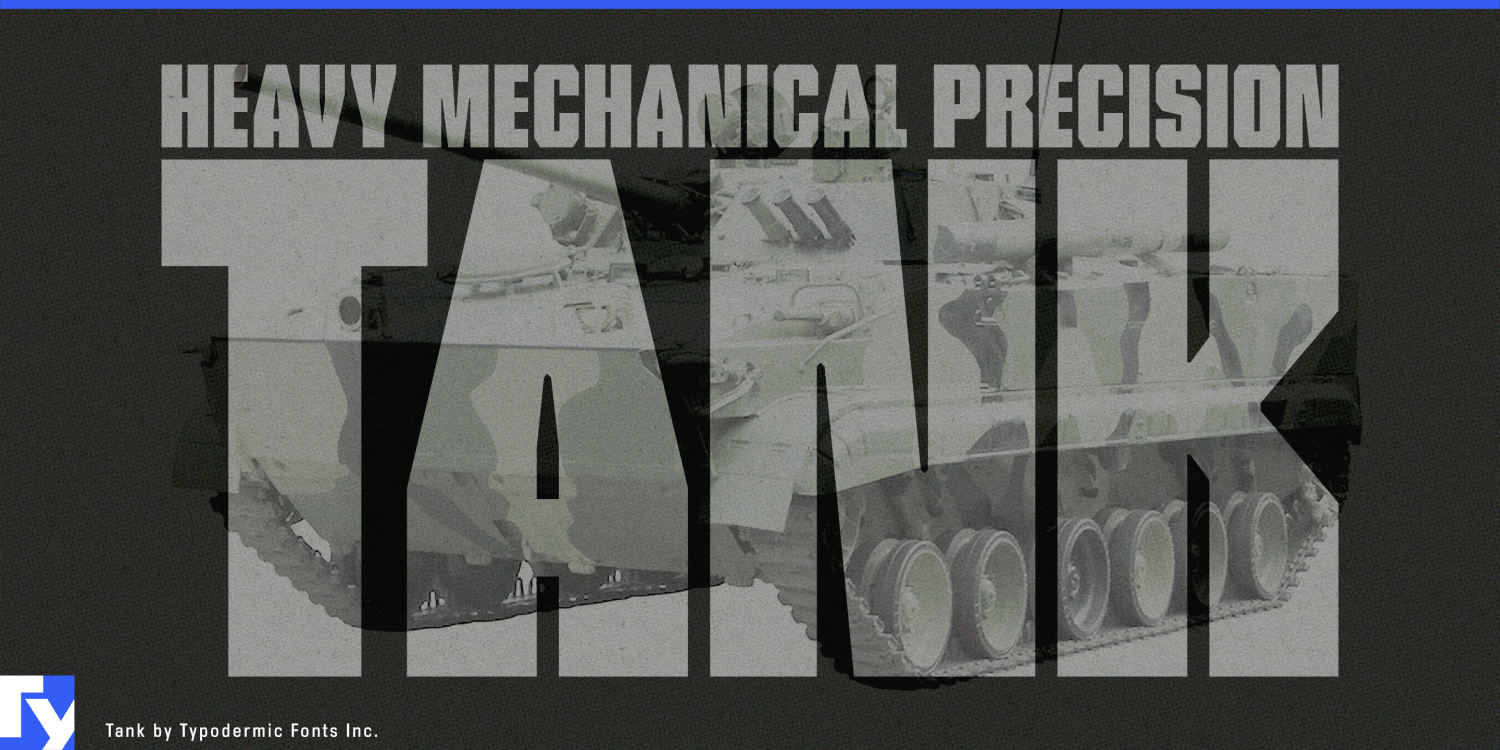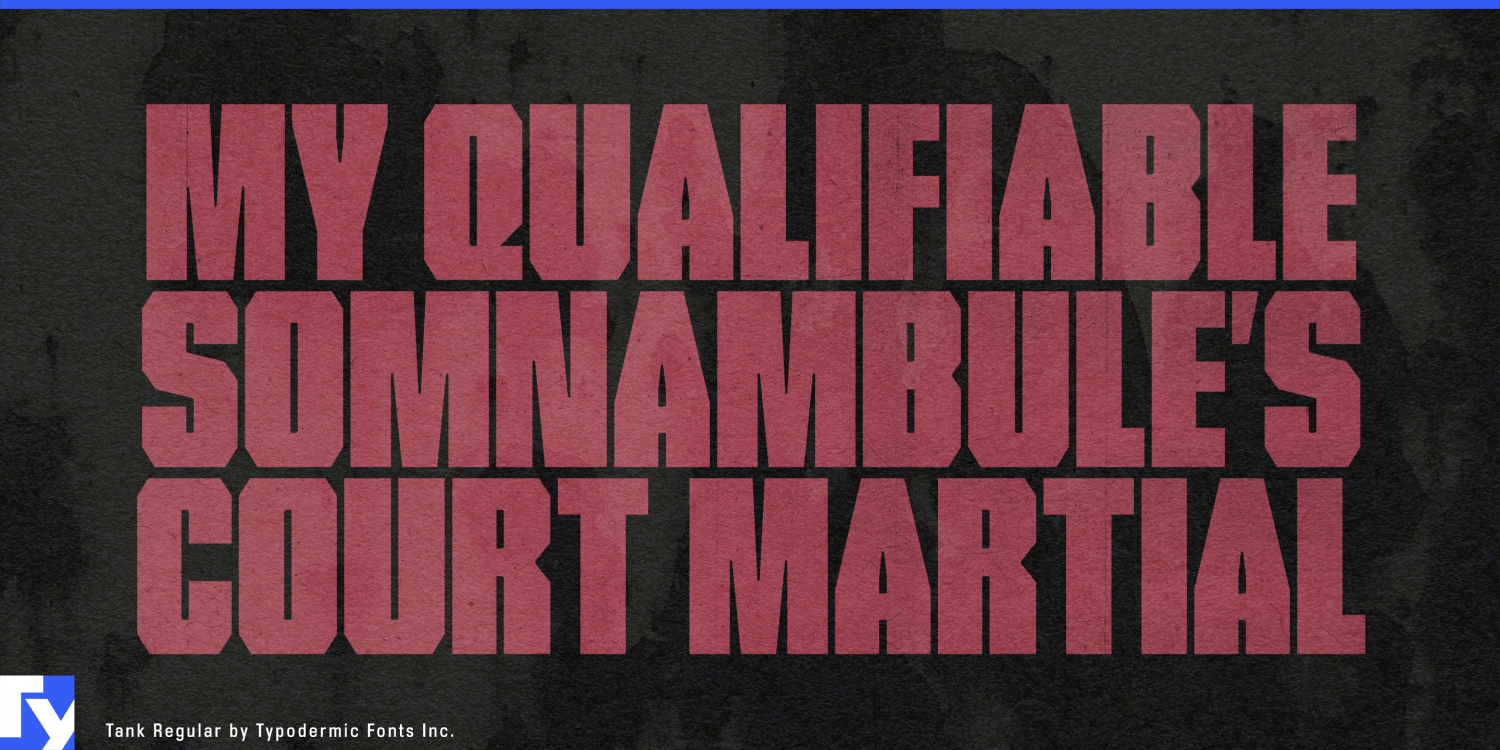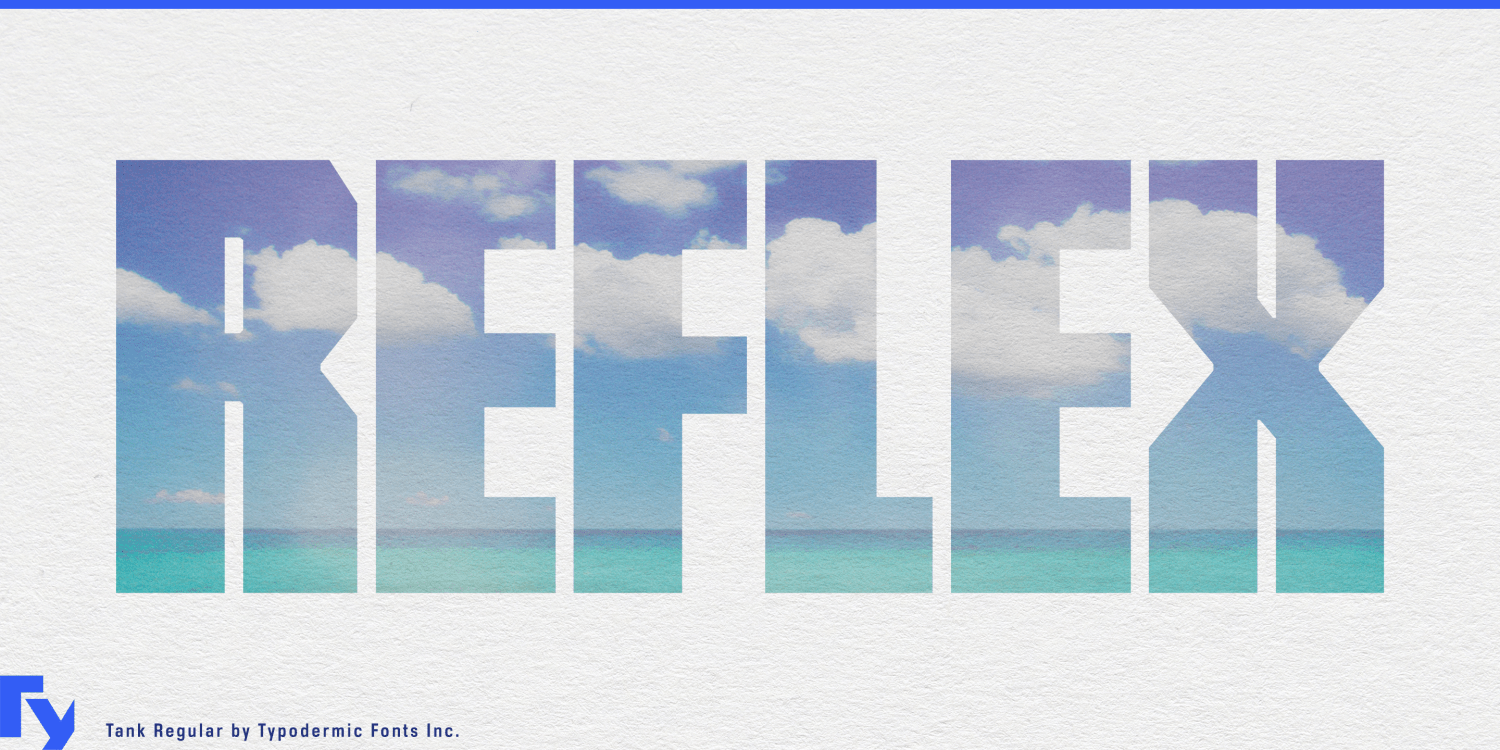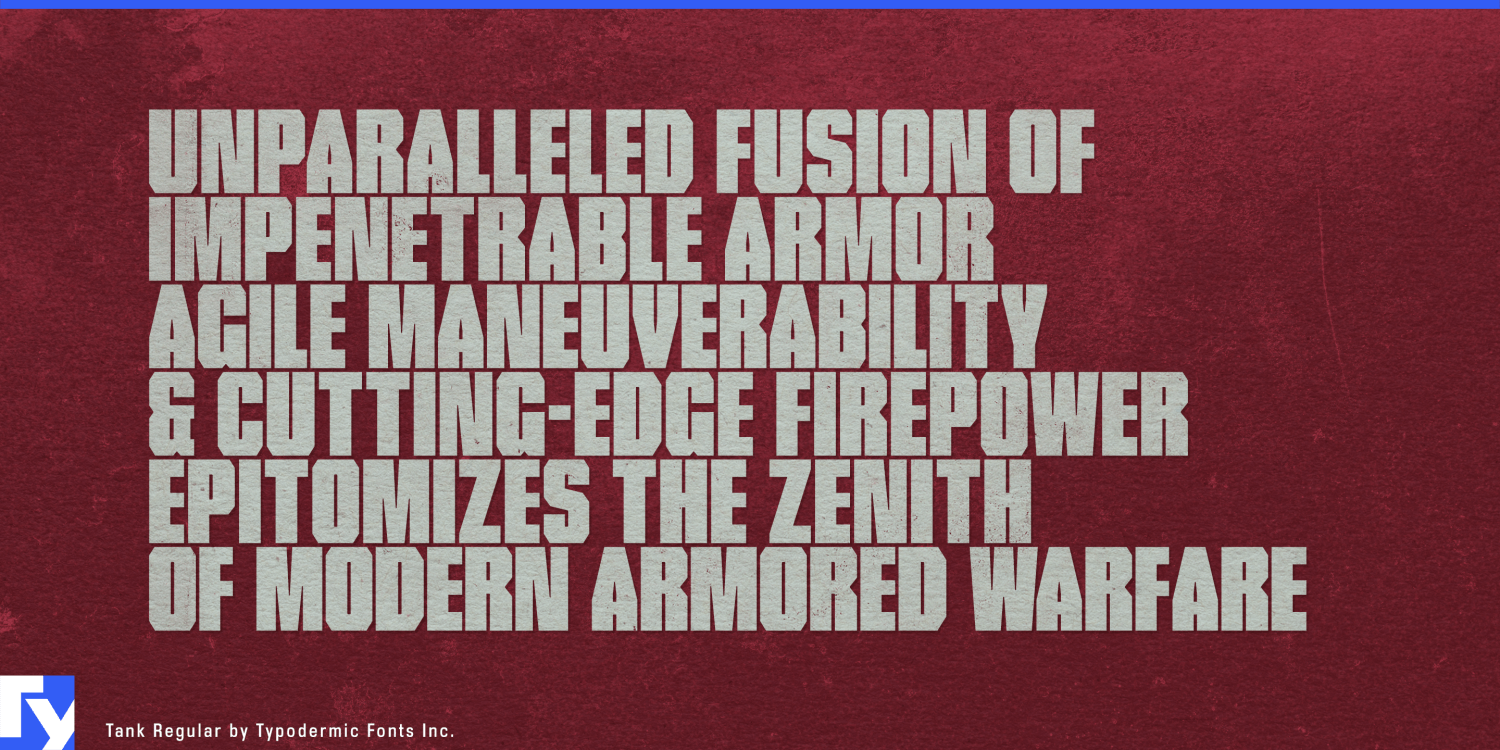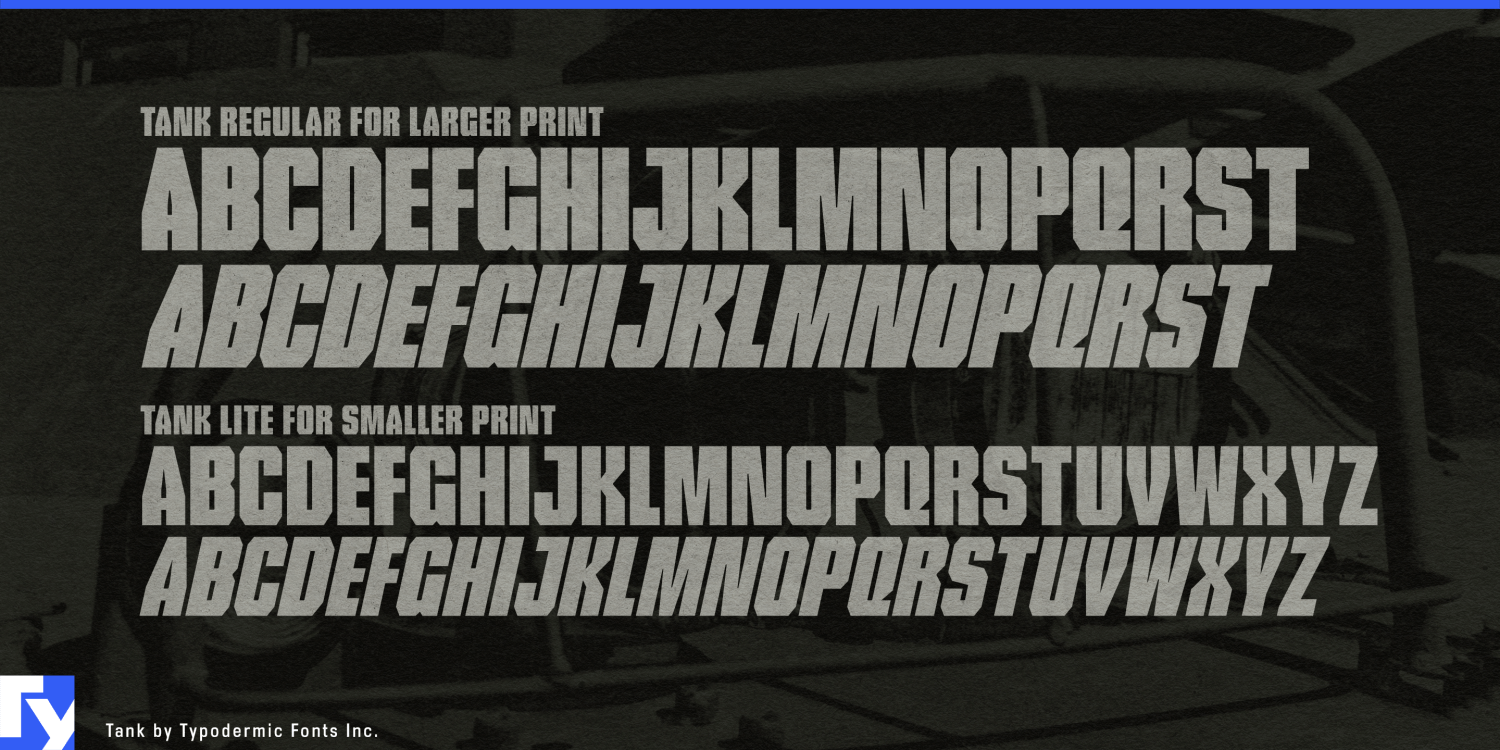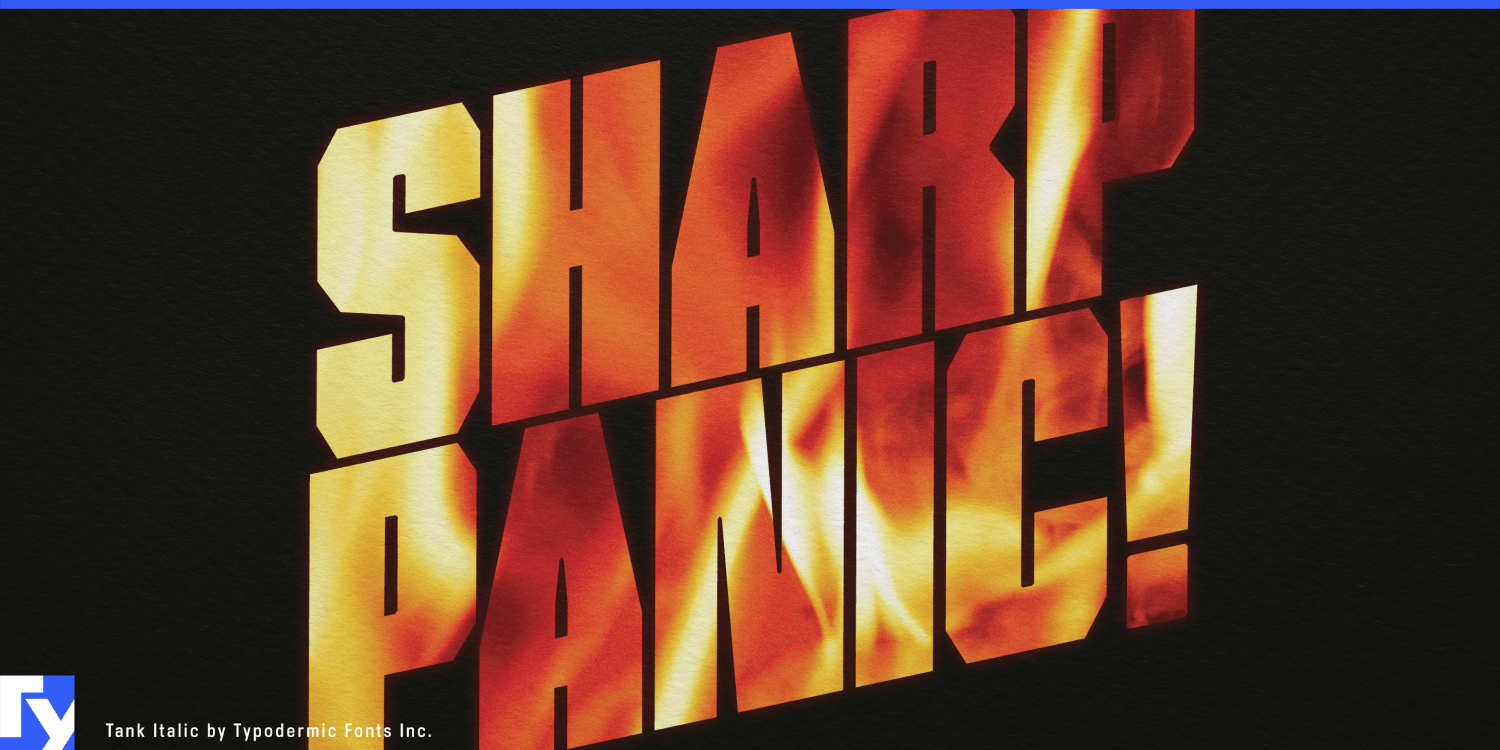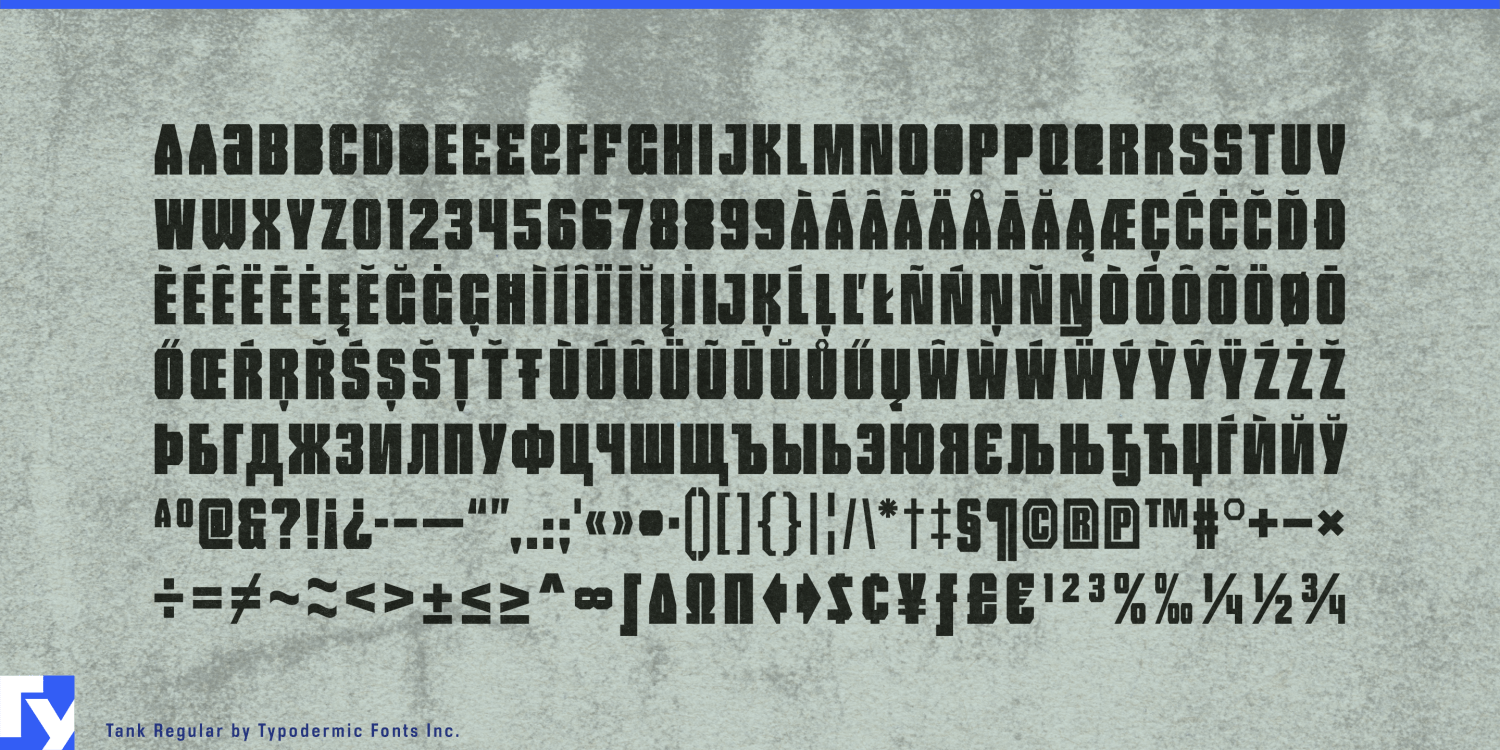
Tank
Font Family by Typodermic
Attention, typography commandos! Prepare to arm your designs with Tank—the heavyweight champion of typefaces that’s built to dominate the visual battlefield. This is a typographic juggernaut engineered to crush the competition and fortify your message with unshakeable authority.
Tank rolls onto the scene with an arsenal of features that make it a force to be reckoned with. Its industrial-strength letterforms and compressed spacing create a solid wall of text that’s impenetrable to distractions. Whether you’re deploying it as a bold color block or executing a precision photo cut-out maneuver, Tank delivers your message with the impact of a direct hit. Don’t be fooled by its name—Tank moves with surprising agility across the design terrain. The Regular style leads the charge with its commanding presence, while the deceptively named Light version still packs enough punch to knock out lesser fonts. For those covert operations that require a touch of dynamism, the oblique styles swoop in to add a strategic angle to your visual attack.
Tank’s linguistic firepower is equally impressive. It stands ready to communicate your message across a vast array of Latin-based European languages and even ventures into Cyrillic territory, ensuring your typographic campaign can cross borders with ease. From Albanian to Zulu, Russian to Swedish, Tank speaks with authority in dozens of tongues.